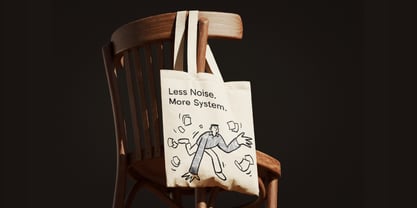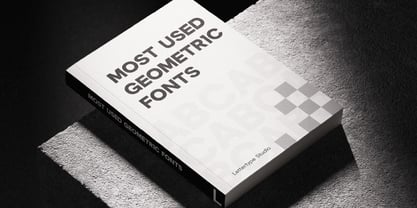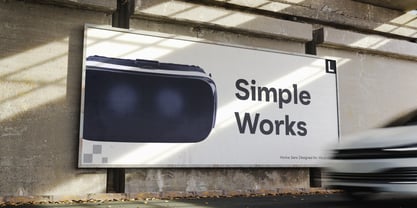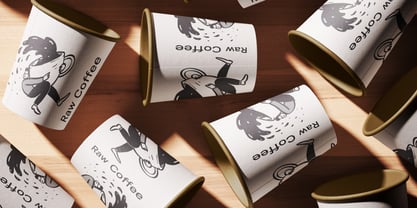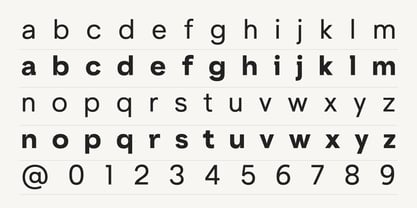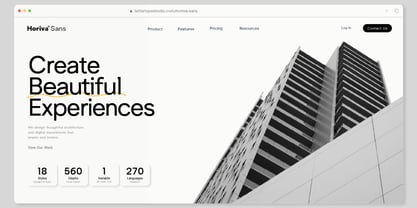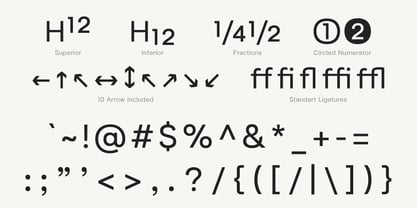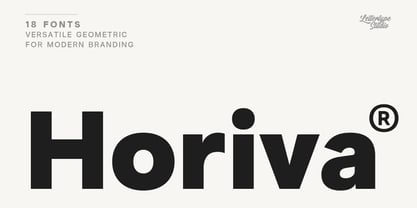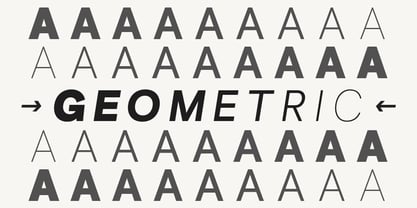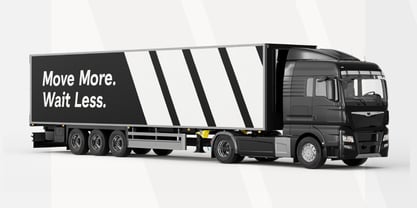
Horiva Sans
Die Schriftfamilie Horiva Sans wurde von Diki Pradipta Tri Atmojo entworfen und von Lettertype Studio veröffentlicht. Horiva Sans enthält 18 Stile und Familienpaketoptionen. Mehr über diese Familie
Horiva Sans is a modern geometric sans serif family designed with refined proportions, balanced spacing, and exceptional readability for branding, editorial, interface, packaging, presentations, and corporate design. Carefully developed with optical adjustments and consistent rhythm, Horiva delivers a clean, confident appearance that performs beautifully across both display and text applications.
Featuring 18 styles from Thin to Black with matching italics, Horiva Sans includes 560 glyphs, support for more than 270 Latin-based languages, superior and inferior numerals, circled and negative circled numbers, additional currency symbols, and extensive stylistic alternates across uppercase and lowercase characters. Built for modern designers, it provides both versatility and consistency for professional creative workflows.